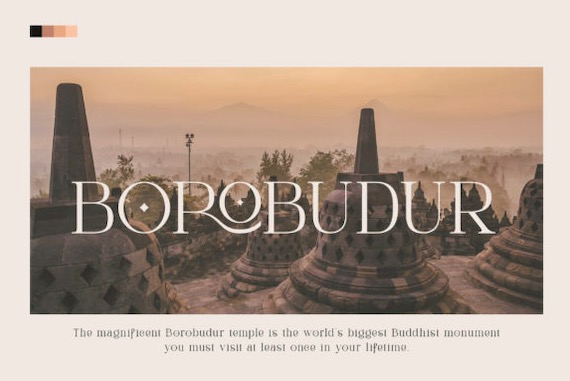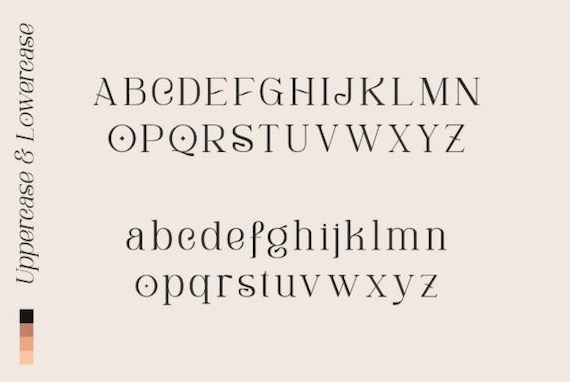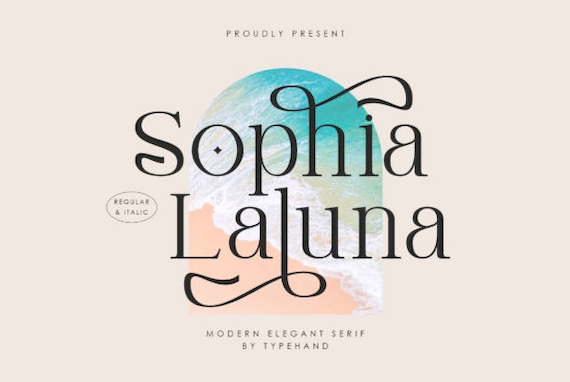
Sophia Laluna is a tall and light serif font that was created and shared by Typehand Studio. This basic font is chic & stylish and it will most certainly elevate each of your creations. This font is PUA encoded which means you can access all of the glyphs and swashes with ease.
Sophia Laluna Serif Font
Publisher: Typehand Studio